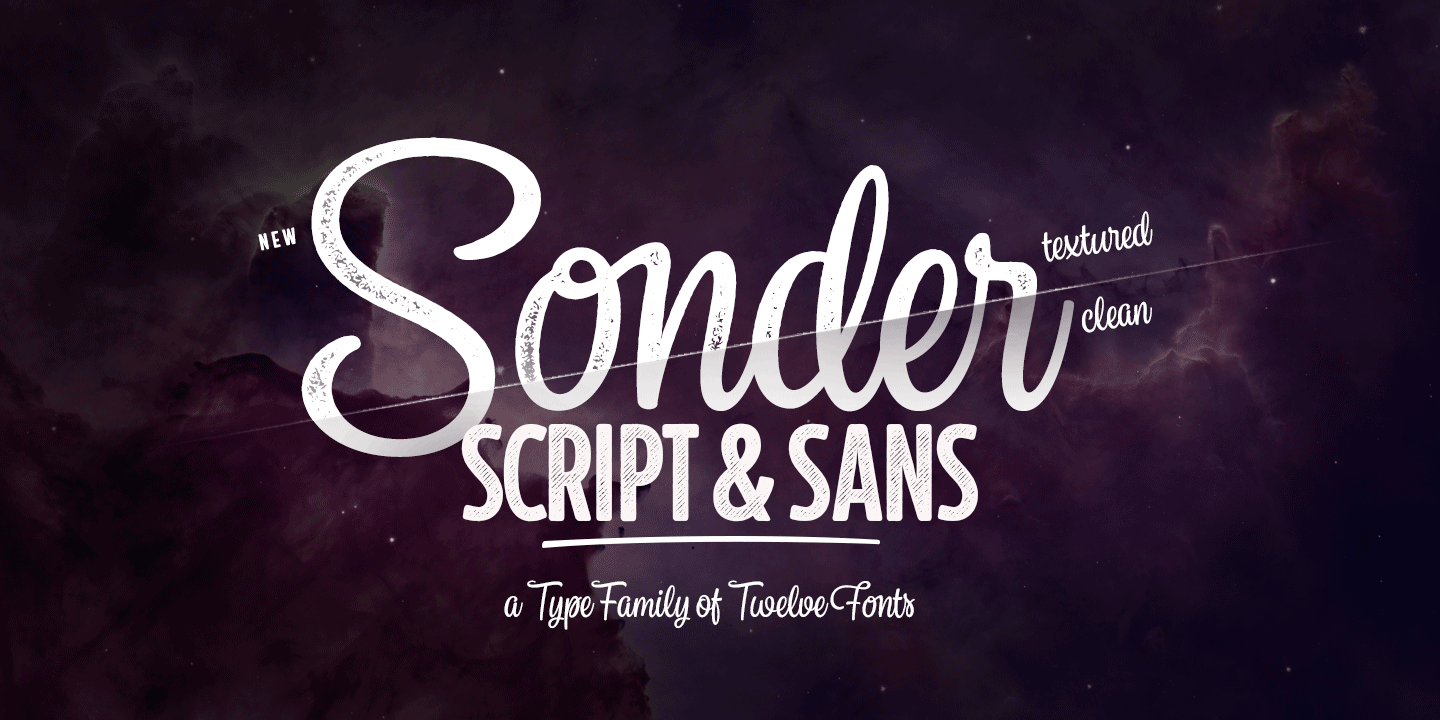
The Sonder Font is a captivating and versatile typeface, often celebrated for its ability to convey a sense of adventure, nostalgia, and a connection to nature or handcrafted artistry. Imagine its unique character gracing the covers of travel guides, adding an authentic, rustic charm to outdoor adventure apparel branding, or creating inviting titles for independent coffee shops and artisanal bakeries. Its often slightly distressed textures, organic forms, or friendly brush strokes also make it an excellent choice for bohemian-inspired wedding invitations, engaging social media graphics for lifestyle brands, and unique product packaging for handmade goods. Whether you're aiming for a warm, welcoming vibe or a distinctive, adventurous aesthetic, Sonder Font delivers with its unmistakable personality, ensuring your visuals evoke a compelling story.
What makes Sonder Font so exciting is its profound ability to evoke a feeling of wanderlust, introspection, and authentic connection. In a digital landscape often dominated by sleek, impersonal designs, this font offers a refreshing dive into a more human, soulful aesthetic. It conjures images of exploration, discovery, and quiet moments of reflection. It’s more than just a typeface; it’s a design element that can instantly set an emotional and evocative tone for a project, making content feel more relatable and deeply resonant. Designers will find it an invaluable asset for creating visuals that truly connect with an audience seeking depth, authenticity, and a sense of shared experience.
The Sonder Font family is typically structured to offer a range of styles that enhance its adventurous and heartfelt appeal. Beyond the primary Sonder Regular typeface (which might feature a charming, slightly imperfect hand-drawn or brush-stroke quality), you might find companion styles such as a more impactful Sonder Bold for stronger emphasis, or perhaps Sonder Script for a flowing, signature-like touch. Given its often natural or vintage-inspired nature, the family may also include unique ligatures, alternate characters, or stylistic sets that allow for even greater customization, mimicking the beautiful irregularities found in true handcrafted artistry. These diverse family members provide designers with the flexibility to establish a clear typographic hierarchy and maintain a consistent, evocative aesthetic across all elements of their project, from prominent titles to smaller, illustrative texts.